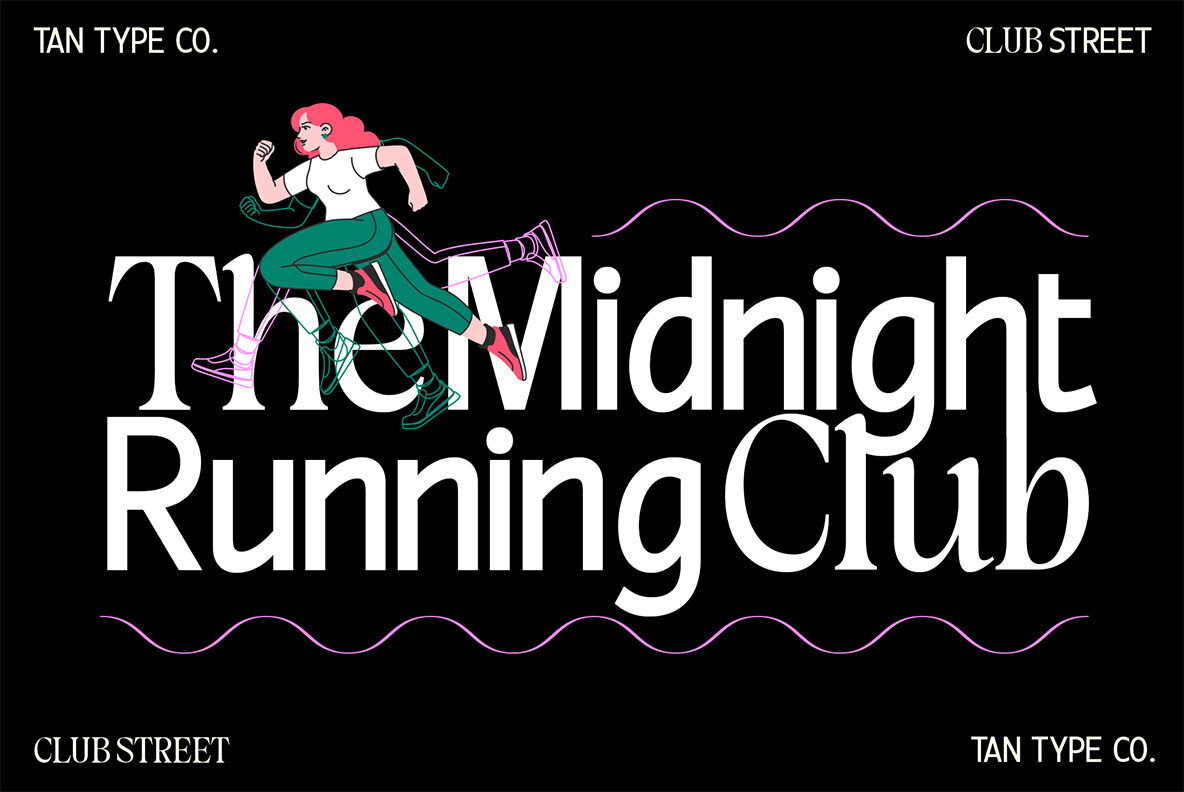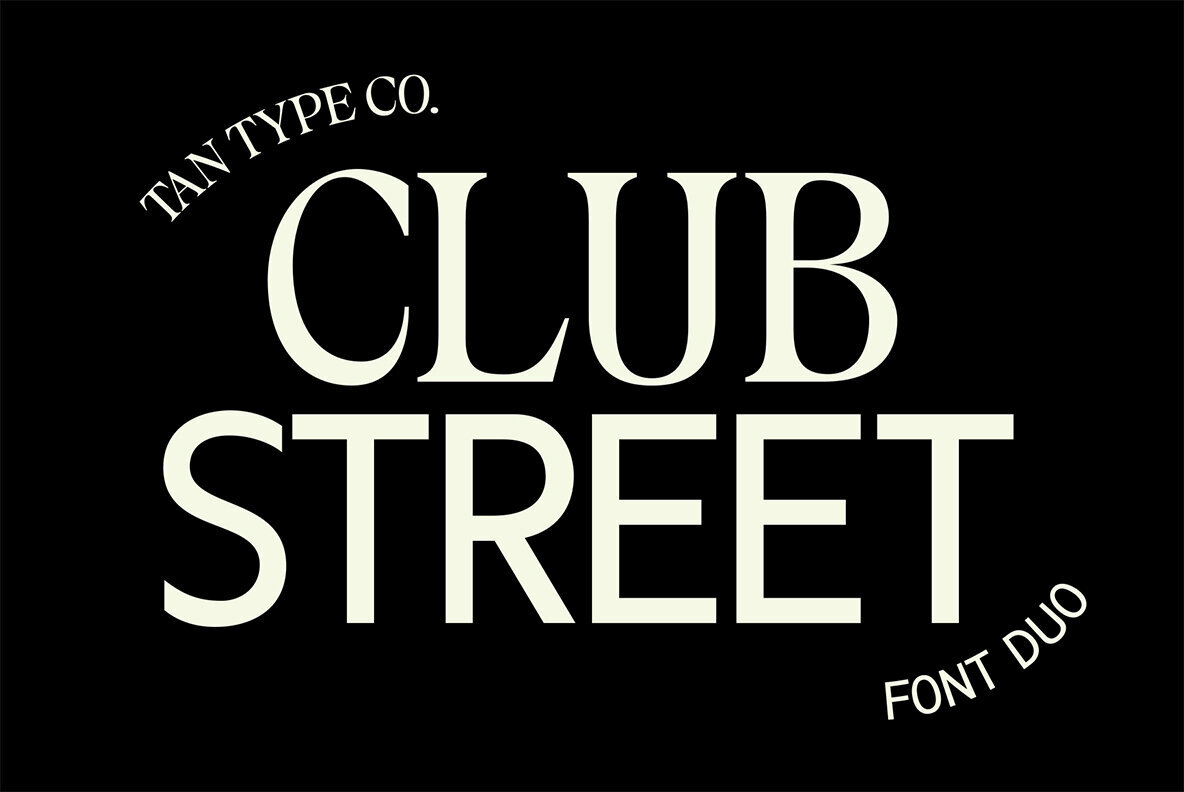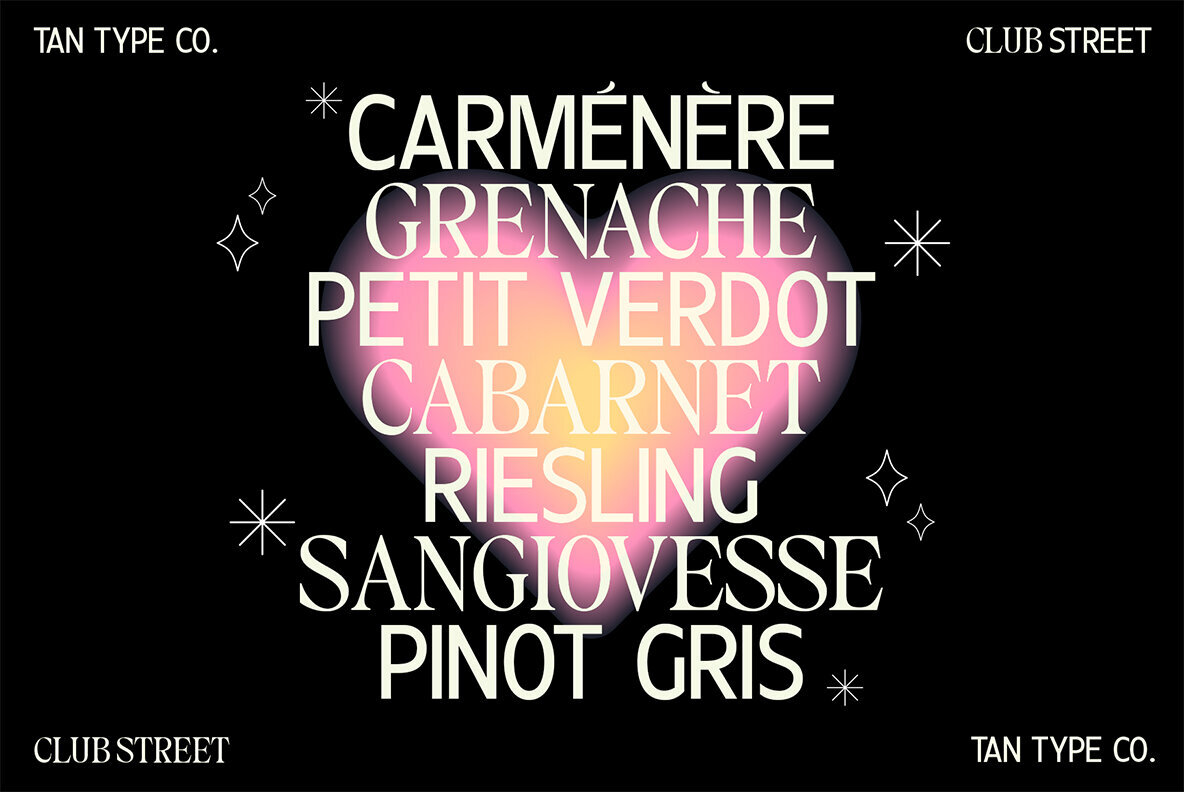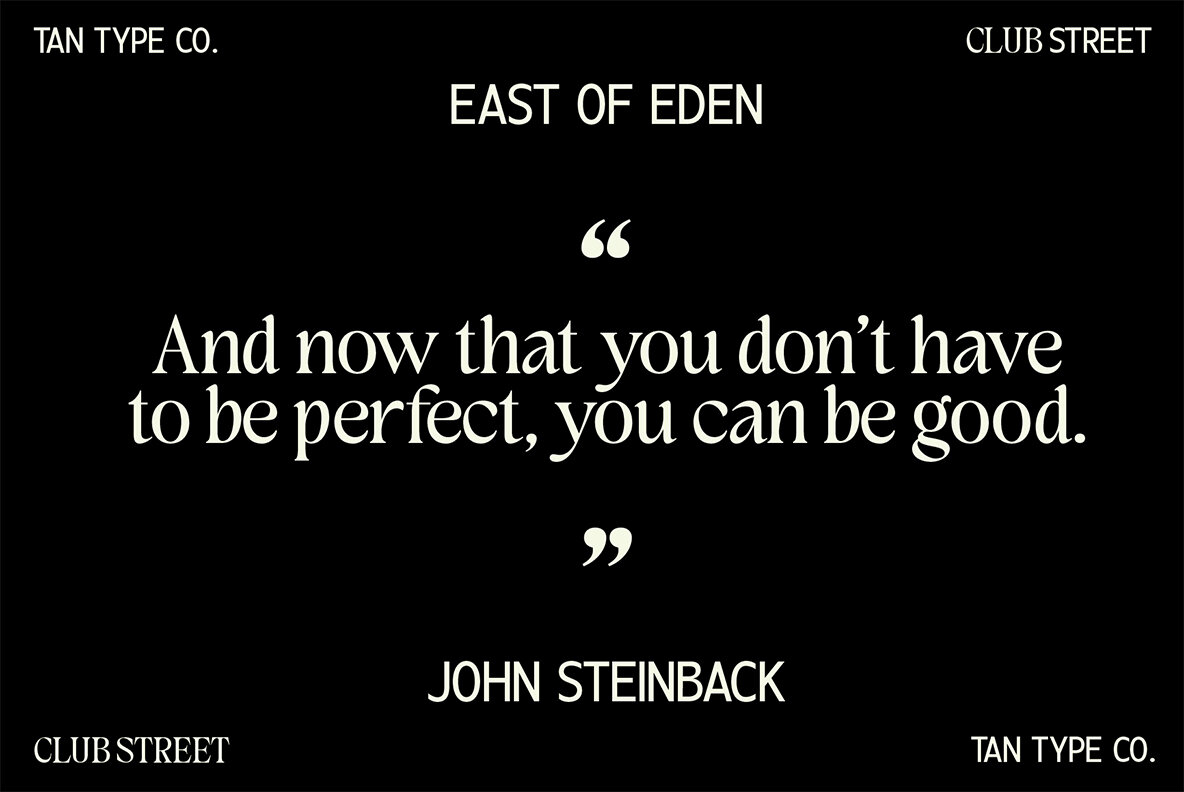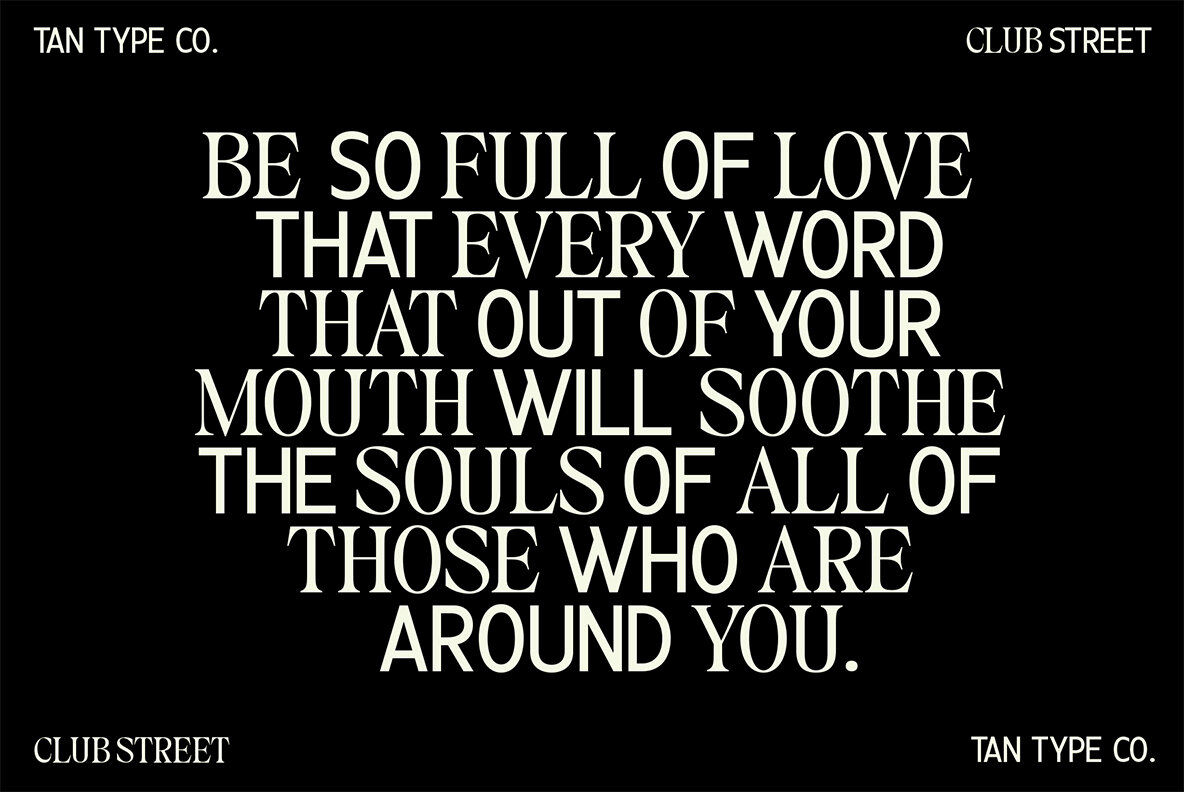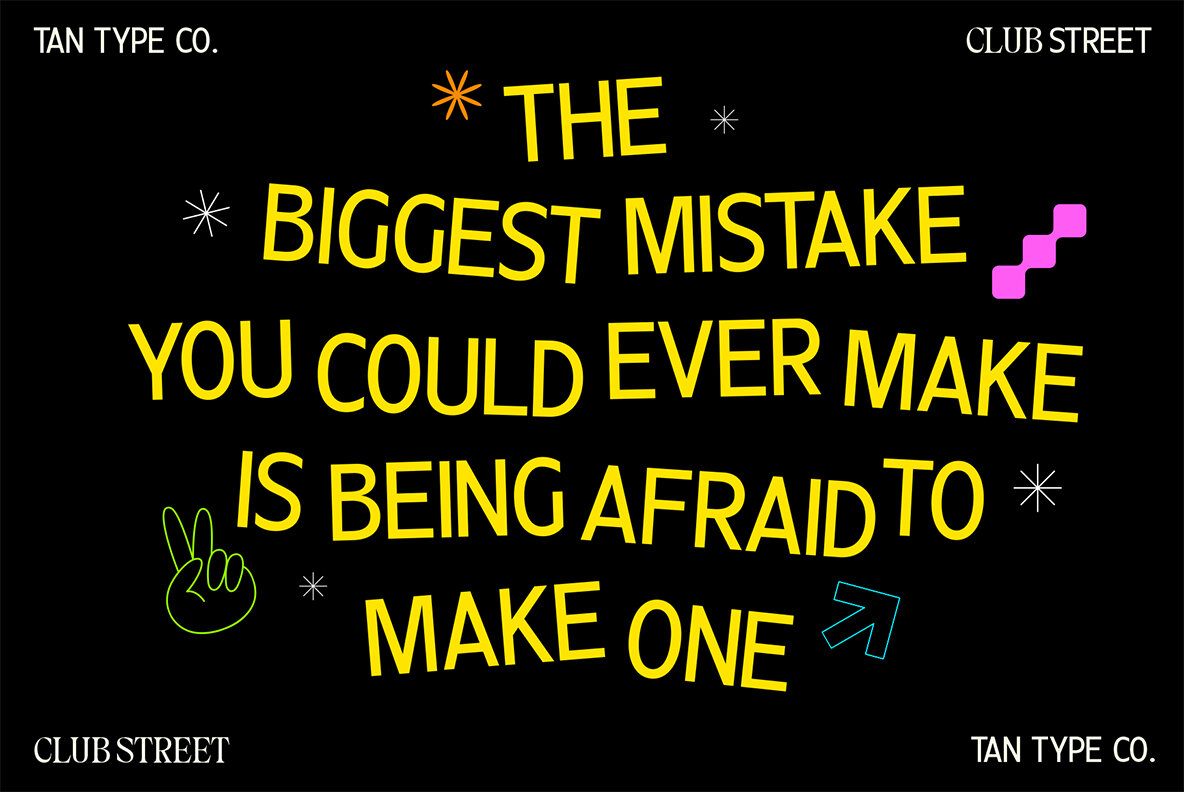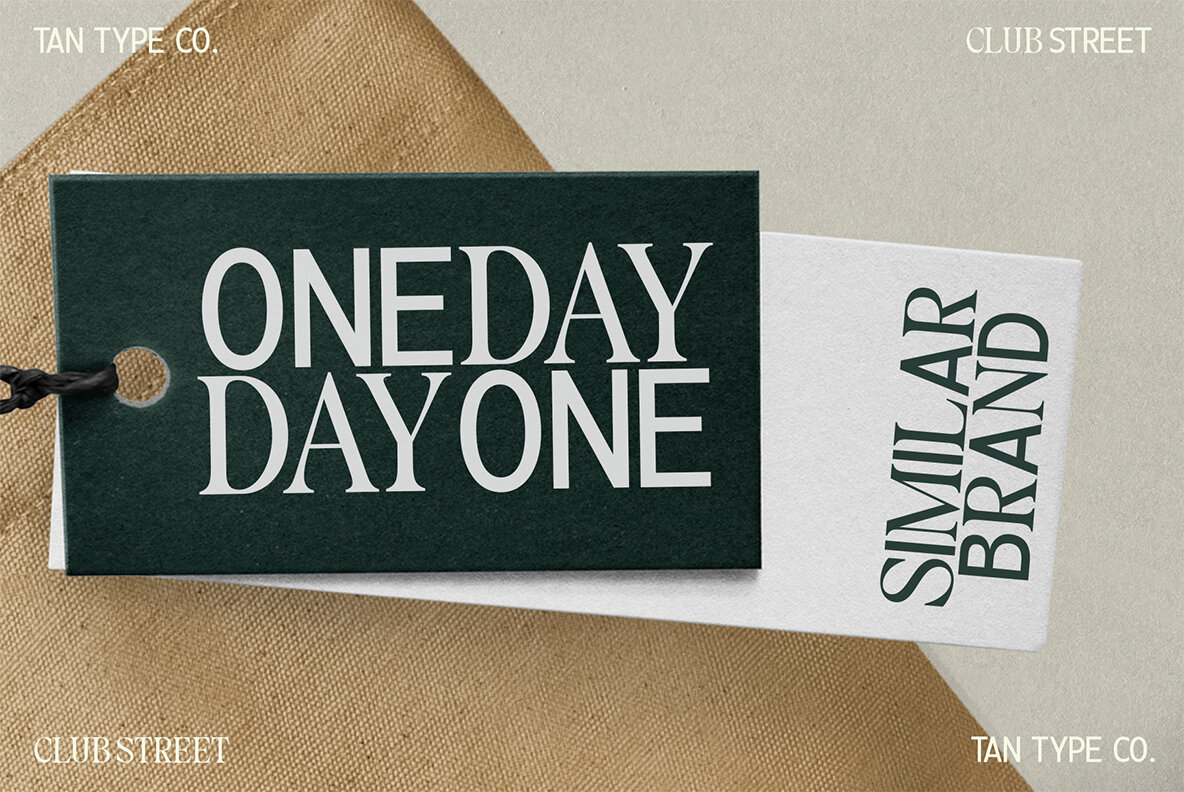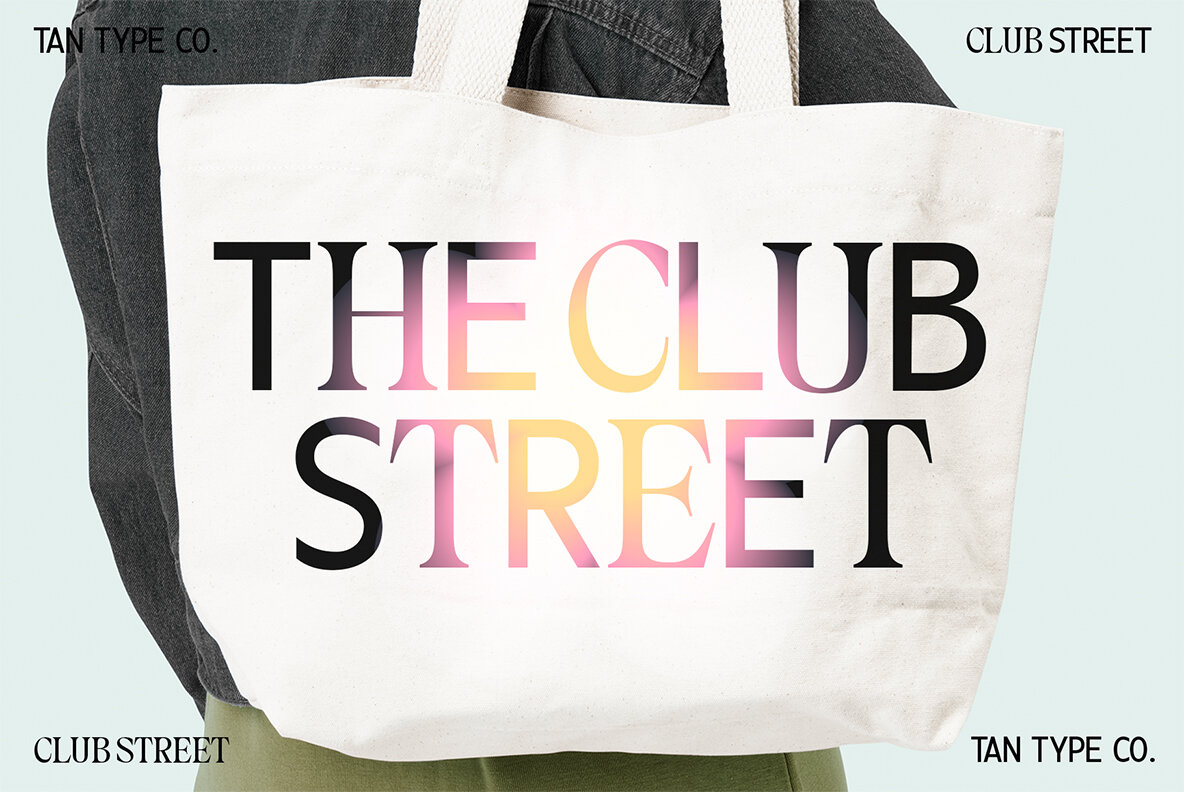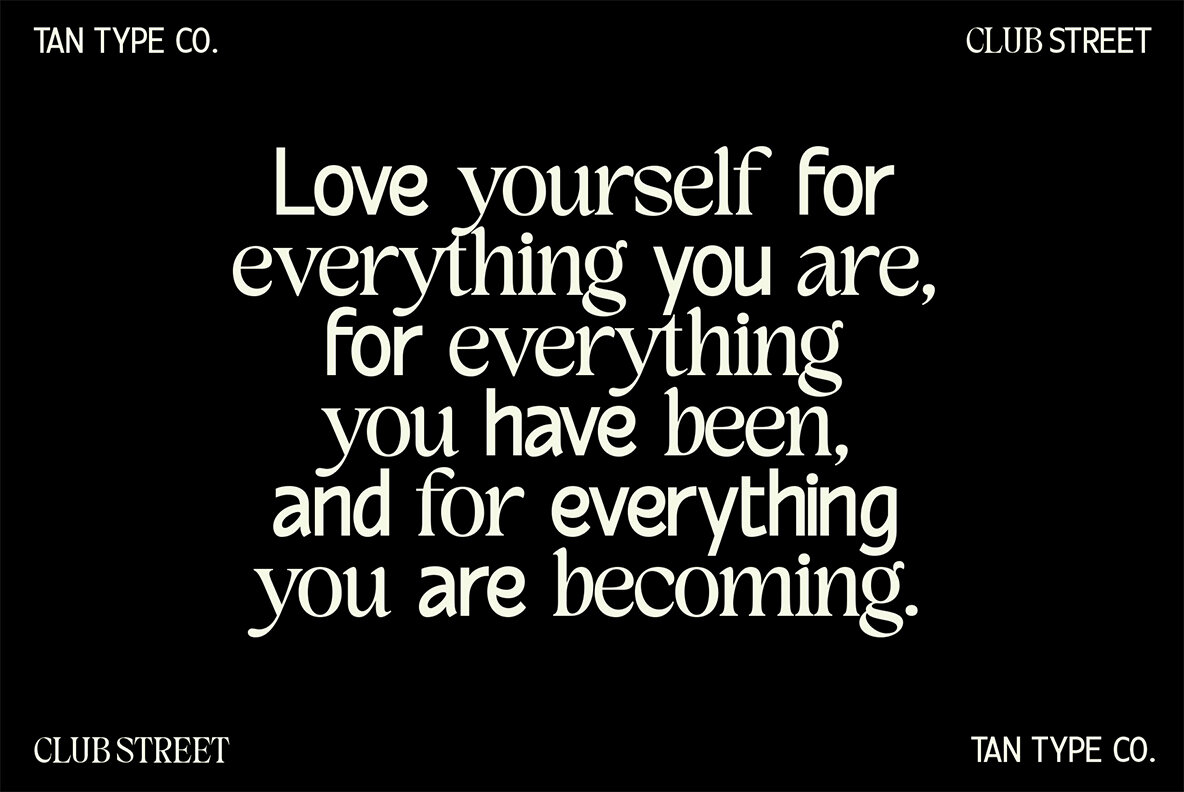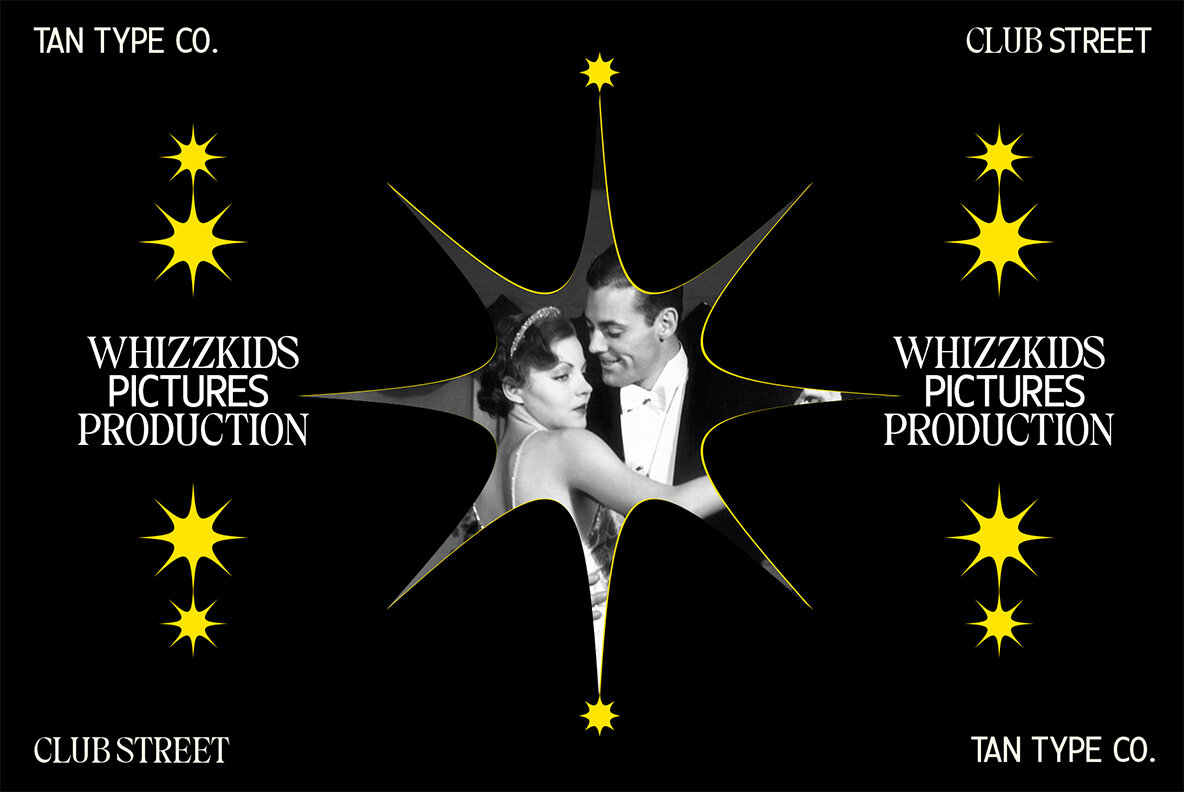
TAN CLUBSTREET Font
Club Street embodies the harmonious intersection of classic and contemporary design, offering a stylish and versatile font duo. This dynamic pair includes a sharp serif and a clean sans serif, united by matching proportions to provide balance and sophistication. Ideal for those creative realities where choosing between the elegance of a serif and the modern edge of a sans seems impossible, Club Street delivers robust versatility. This typeface suits a variety of creative needs, from fashion editorials and brand identities to trendy packaging. It embraces minimal sophistication and delivers just the right touch of cool. Though compatible with most design software, ensure your software supports OpenType fonts to access all its features. Note that while the font integrates well with Canva, advanced OpenType features such as special characters are not supported by the platform.Club Street: The Perfect Font Duo